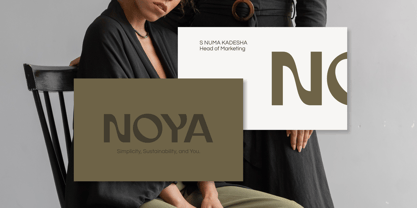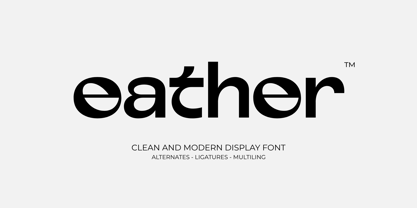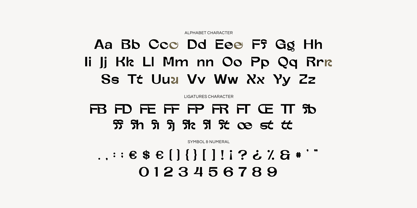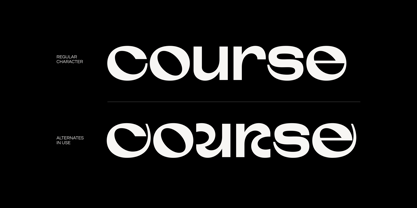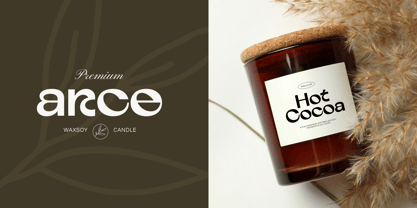
Eather
von Imoodev
Die Schriftfamilie Eather wurde von Aulia Savira Putri entworfen und von Imoodev veröffentlicht. Eather enthält 1 Stile. Mehr über diese Familie
Atelier is a clean modern display font that expertly bridges the gap between rigid geometric structure and "liquified" organic fluidity. It is designed for creators who need their typography to do the heavy lifting in a brand’s visual identity. Drawing inspiration from mid century modernism and contemporary experimental type, Atelier features modern geometric style with a distinctive futuristic and experimental touch. Atelier is a sleek and versatile sans serif, designed and perfect for logos, product packaging, headline, website header, posters, editorials, magazines, luxury packaging, sophisticated titles, fashion, beauty, and premium branding
Designer: Aulia Savira Putri
Foundry: Imoodev
Eather